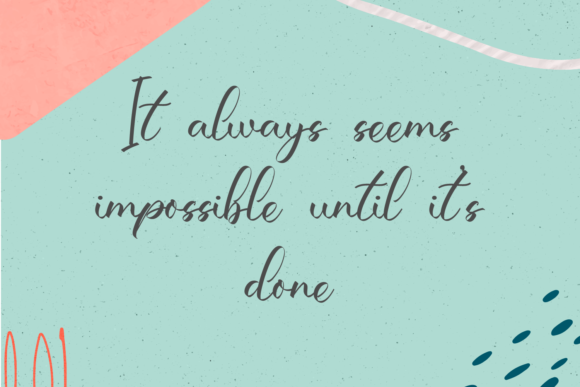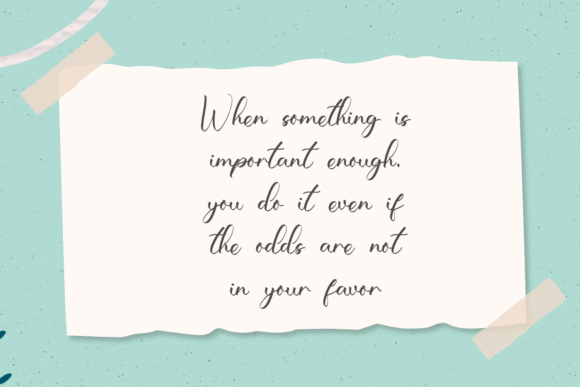
Discover the Delicate Charm of Angeline Camelia Font
Have you ever stumbled upon a beautiful, handwritten font that instantly transports you to a world of romance and elegance? For me, that moment came when I was working on a wedding invitation design, and I needed the perfect font to convey the couple’s love story. As I scrolled through font options, one particular font caught my eye – Angeline Camelia Font. Its flowing curves and delicate strokes seemed to dance across the page, exuding an air of sophistication and charm.
| 👤 Author | Zero Type |
Angeline Camelia Font is a versatile, handwritten font designed to add a touch of romance and whimsy to your projects. Whether you’re creating a wedding invitation, a birthday card, or a blog post, this font is sure to bring a sense of elegance and refinement to your design. For designers, Angeline Camelia Font is a valuable asset, offering endless possibilities for creative expression and adding a personal touch to your work.
- Font Family: Angeline Camelia
- Font Styles: Regular, Italic, Bold, Bold Italic
- Unique Characteristics: Elegant script design, suitable for formal and wedding invitations, and other special occasions
Review of Angeline Camelia Font
I recently had the chance to work with the Angeline Camelia font, and I must say it’s a unique and intriguing choice. Here are some of my thoughts on this font.
- The font’s distinctive style and flair make it stand out in designs. It’s perfect for adding a touch of elegance and sophistication.
- The font’s versatility makes it suitable for a wide range of applications, from headings to body text.
- The Angeline Camelia font comes in various weights and styles, giving designers plenty of options to choose from.
- The font may not be ideal for text-heavy designs, as it can be challenging to read in smaller sizes.
- The font’s unique style may not appeal to everyone, and some users may find it too ornate or distracting.
- The font’s compatibility with certain operating systems or software may be limited.
Overall, I think the Angeline Camelia font is a great choice for designers looking to add some personality and flair to their projects. While it may have some limitations, its unique style and versatility make it a valuable addition to any font collection.
The Angeline Camelia Font is ideal for creating elegant and sophisticated designs. Here are some tips and common use cases:
- Use the font for headings and titles to add a touch of luxury.
- Pair the font with a neutral background to make the text stand out.
- Use the font for invitations, wedding designs, and other special occasion graphics.
3. Florence Italic
Florence Italic is a classic, elegant font that exudes sophistication and refinement. It features a beautiful, flowing script that is perfect for formal invitations, business cards, and other professional documents.
Compared to Angeline Camelia Font, Florence Italic has a more subdued and understated look, making it suitable for designs that require a sense of elegance and poise.
4. Gigi Script
Gigi Script is a modern, stylish font that is perfect for fashion, beauty, and lifestyle projects. It features a sleek, sophisticated look that is sure to appeal to a younger audience.
Unlike Angeline Camelia Font, Gigi Script has a more contemporary and edgy feel, making it suitable for designs that require a sense of modernity and trendiness.